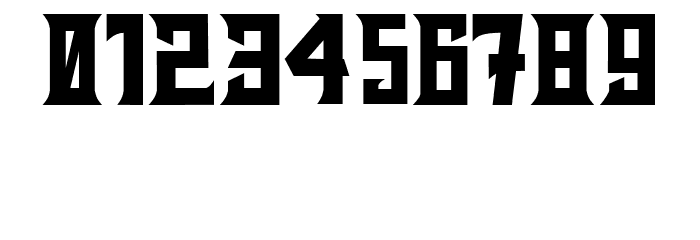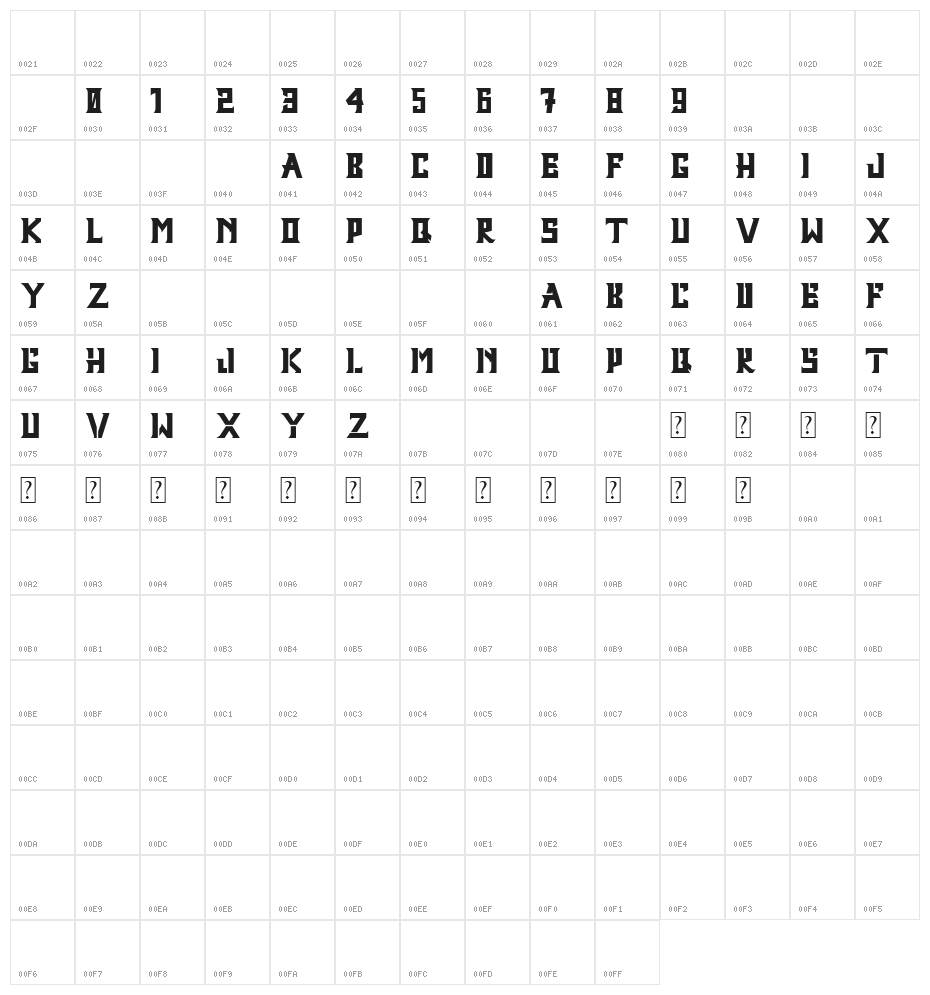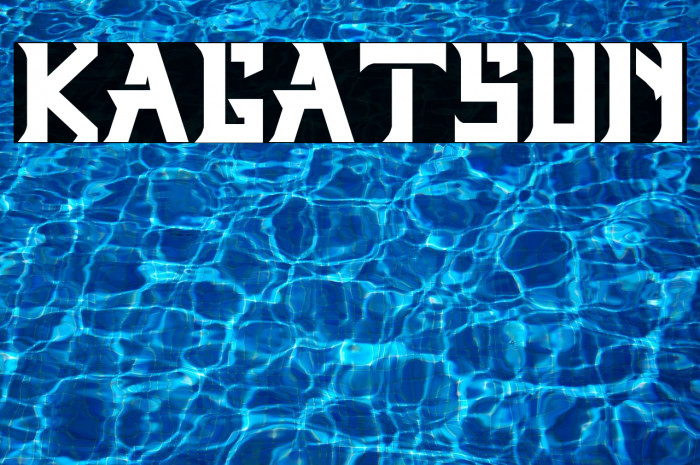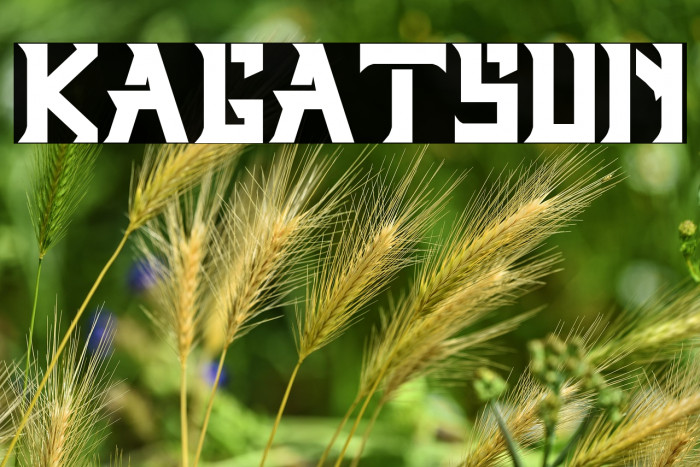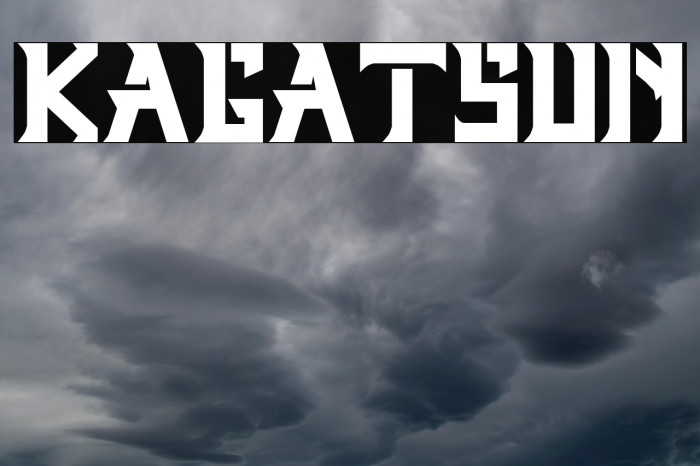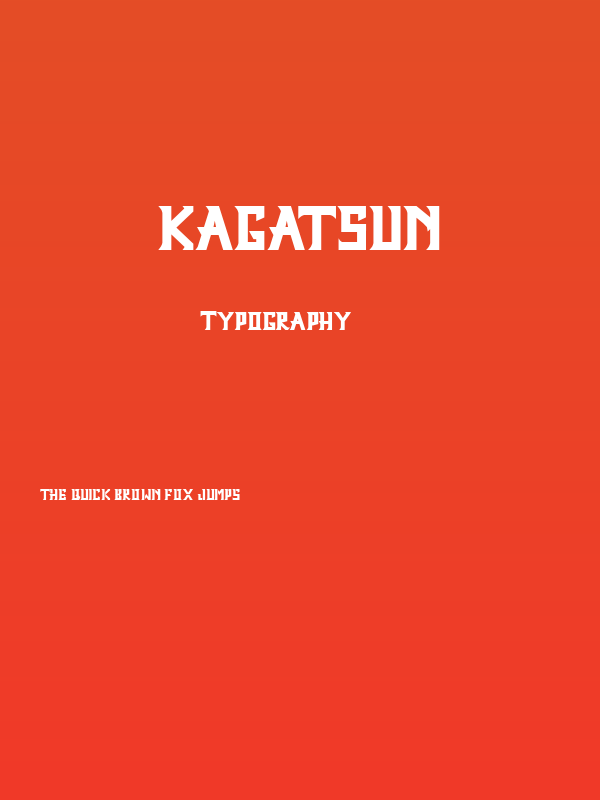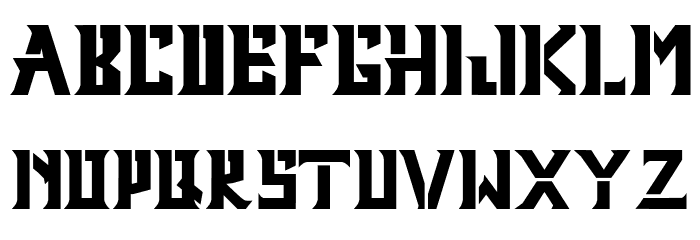
Kagatsun Font
Kagatsun Description
This font features a bold and striking design with sharp, angular edges and a geometric structure. The uppercase letters are particularly prominent, with a strong presence that commands attention. The characters are uniformly wide, giving the font a balanced and cohesive look. The numbers follow the same bold style, ensuring consistency across all characters. This font's unique style makes it ideal for projects that require a modern and edgy aesthetic.
| Proposed Projects | Ideal for branding, posters, and headlines that need a strong visual impact. |